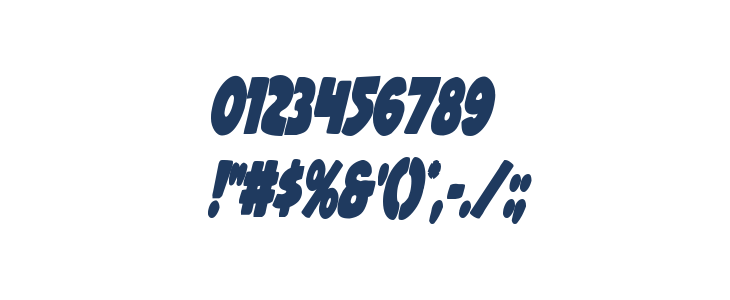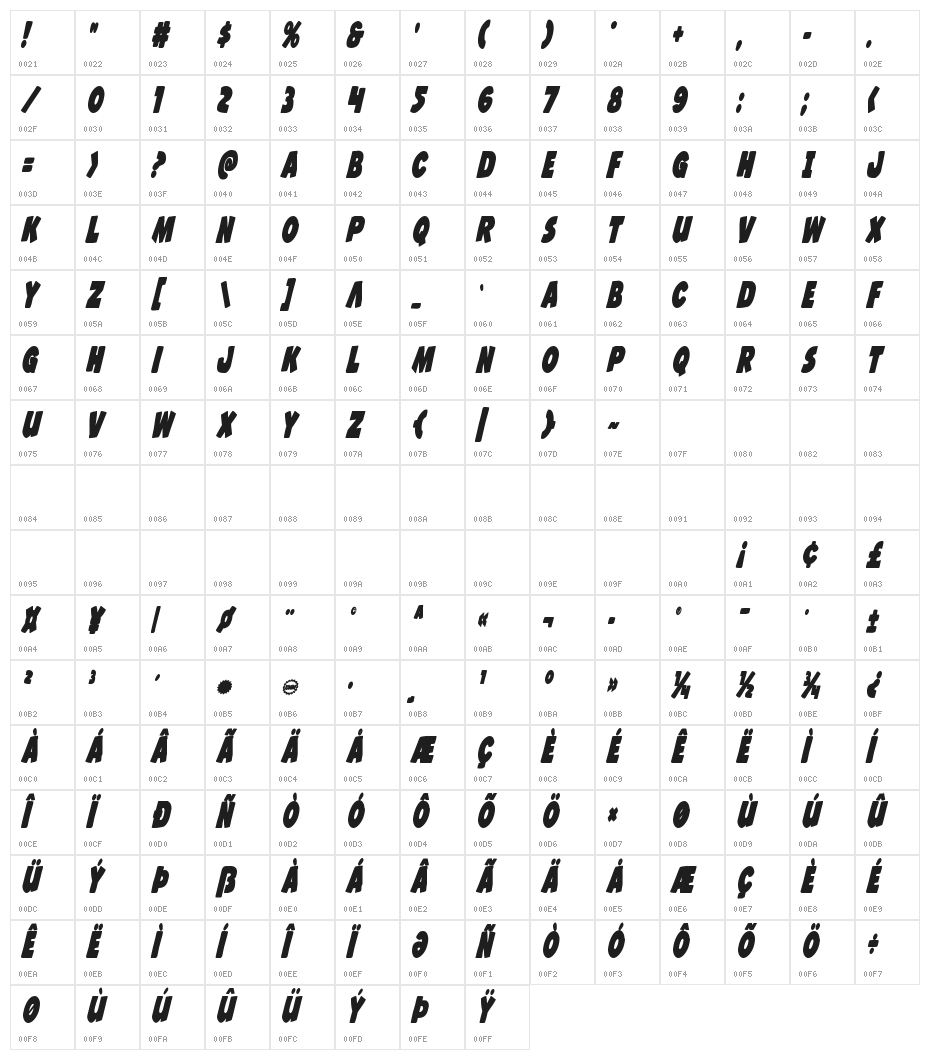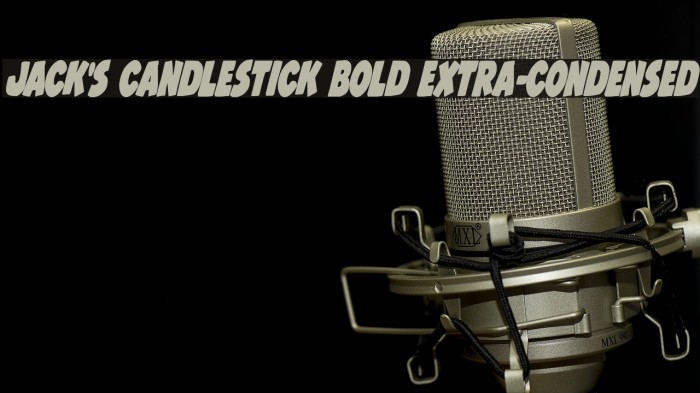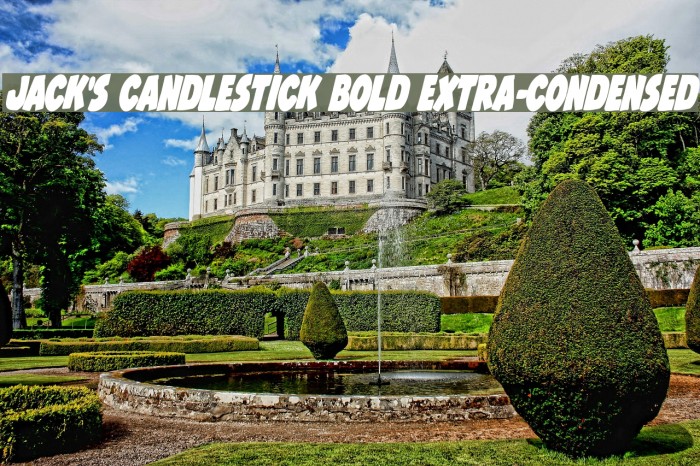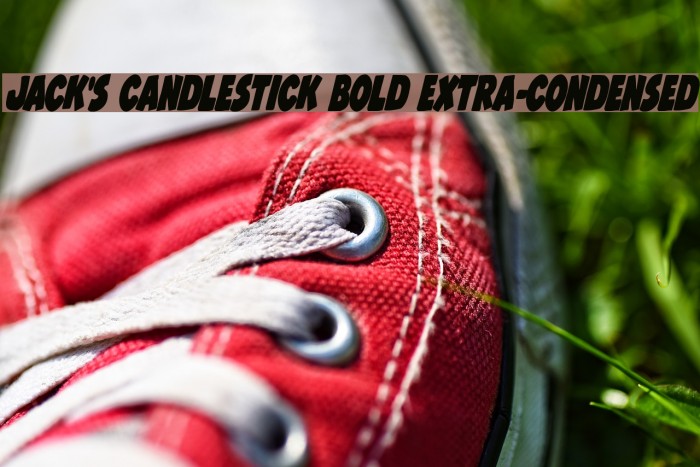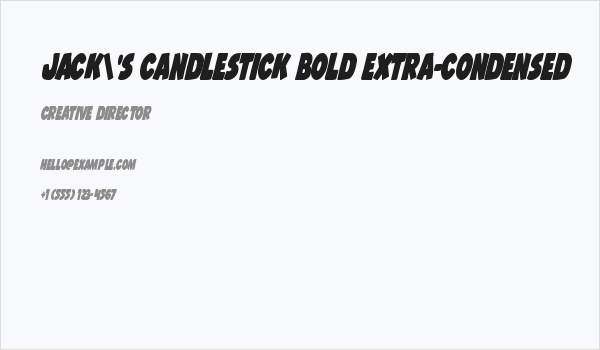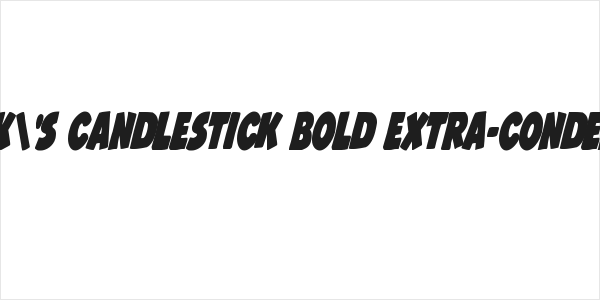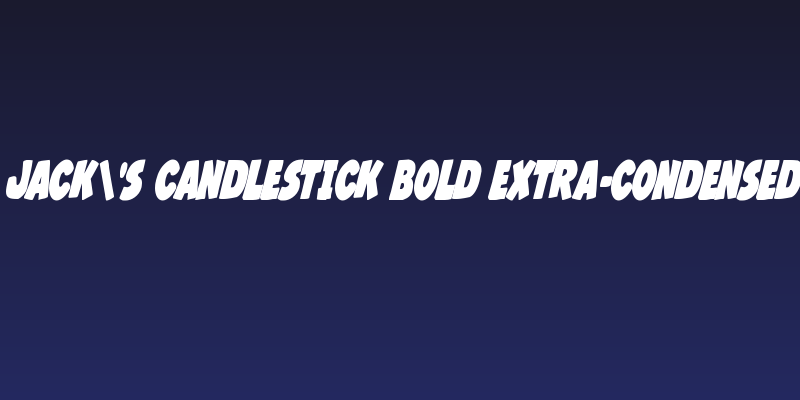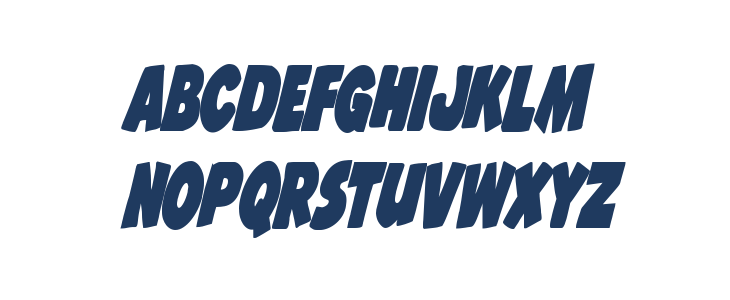
Jack's Candlestick Bold Extra-condensed Font
Jack's Candlestick Bold Extra-condensed Description
This font features a bold and dynamic style with an extra-condensed width, making it highly impactful and attention-grabbing. The characters are robust and thick, with a slight slant that adds a sense of movement and energy. The uppercase letters are particularly striking, with a strong presence that commands attention. The numbers and special characters maintain the same boldness, ensuring consistency across all text. This font's design is ideal for making a statement, with its powerful and assertive appearance.
| Proposed Projects | Ideal for posters, headlines, branding, and any project needing a bold statement. |